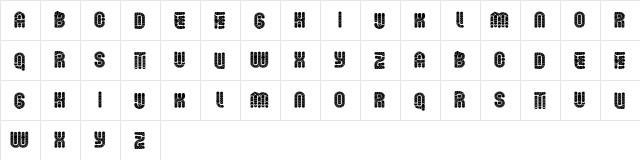
Near Regular Font Preview
Near Regular
Design Context for Near Typeface
Near is a composed and adaptable typeface that performs quietly and consistently across a wide range of design contexts.